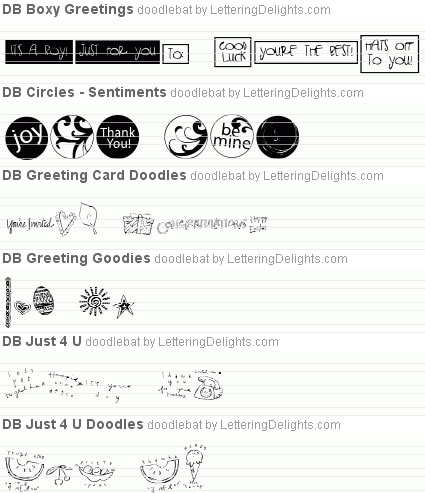
It started as a Mother’s Day project but grew into something much greater as my own mother recently started making a list of all of the women she knew who have touched her life on some way. As I read her long list of names they included women from her childhood and growing up years; women who she know as a young mother herself and women who have been in her life more recently. There are relatives; women with whom she spent only a brief time; women who are lifelong friends. With this list in hand she created a card and verse, and has been working diligently for days preparing them to be mailed. It’s been a labor of love for her that I know will be appreciated by all those who receive it.
Every woman at some time mothers children who may not be her own and I’m sure we have all been recipients of those mothering words or actions. Mother’s Day is a great time to let not only your Mother, but other important women in your life know how important they are to you. Make a card and send a note; something they can keep to read again and again, and be reminded that they made a difference to you.
Quotes for Mother's Day
Happy Mother’s Day!
2. Sweets for Mother Bundle
Sweets for Mother Bundle
The new Sweets for Mother Bundle is perfectly delicious and calorie free! Assorted Chocolates and Petits Fours alphabets give
Mom her favorite sweets. JDT Petits Fours clip art set includes the sweetest images, borders, frames and words she’ll ever see. Give this Bundle as a gift for Mom or use it to make Mother’s Day cards and gifts she’ll treasure.
3. Rani's Craft Queen Bundle
Rani's Craft Queen Bundle
Three crafty alphabets combine with three equally crafty clipart collections in Rani’s new Craft Queen Bundle. Three crafty
alphabets combine with three equally crafty clipart collections in Rani’s new Craft Queen Bundle. Pair them up or mix-and-match for the ultimate expression of craftiness! Alphabets feature craft tools from needles and thread to paints and pallets and artistic designs. Clip art sets include a collection of images, words and frames.
4. DoodleBat Greetings Bundle
Looking for the perfect thing to say? Say it perfectly with the DoodleBat Greetings Bundle! Say it alone or with a simple illustration. Say whatever your heart desires! Choose from big and bold, fun and fancy, or sweet and simple. However you want to say it, the DoodleBat Greetings Bundle has it!